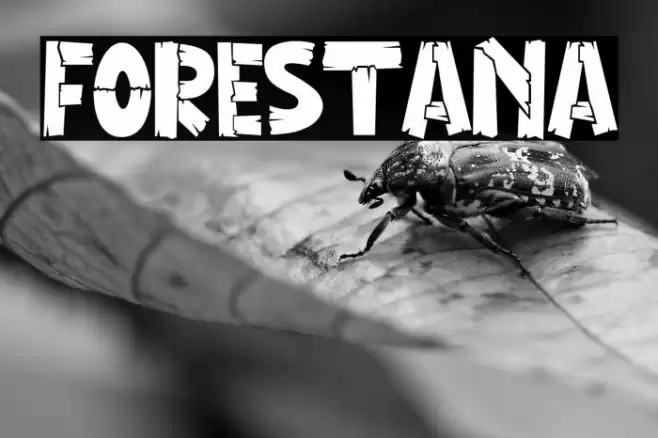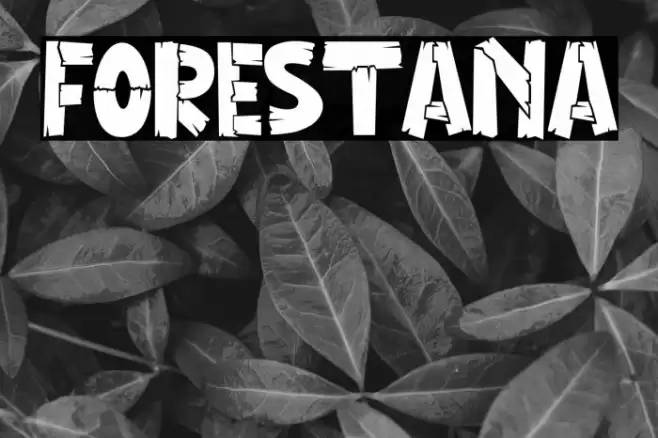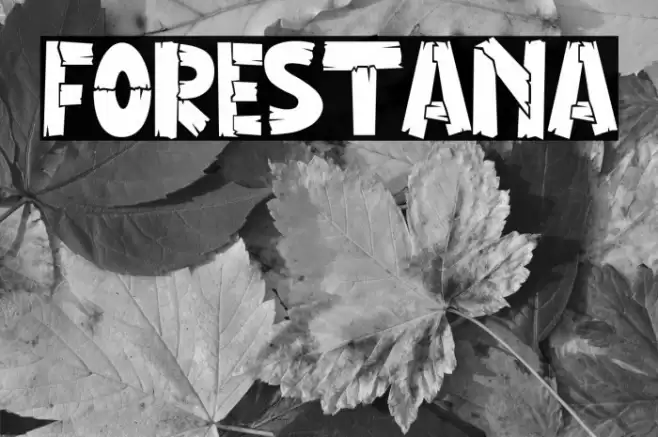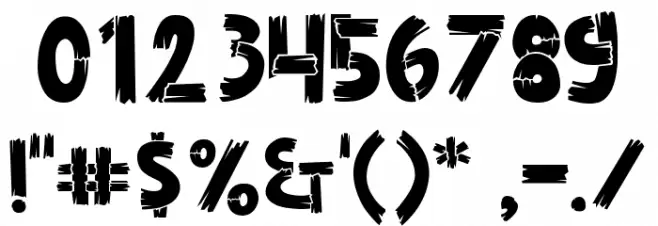
FORESTANA Font
FORESTANA Description
This font features a bold and dynamic style with a distressed, textured appearance reminiscent of natural elements. The characters are bold with irregular edges, giving them a rugged, organic feel. The uppercase and lowercase letters maintain a consistent design, with a playful yet assertive presence. Numbers and special characters follow the same aesthetic, ensuring a cohesive look across all text elements. The font's unique style makes it stand out, perfect for projects that require a touch of nature-inspired creativity.
A bold, textured font with a rugged, organic style from Decorative fonts.
- Proposed Projects: Ideal for nature-themed posters, outdoor event flyers, eco-friendly product packaging, and adventurous branding projects.